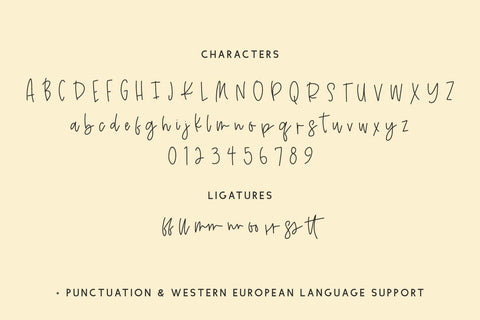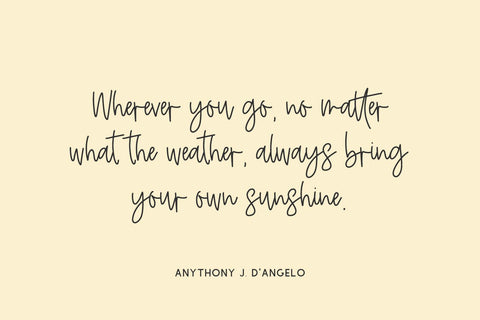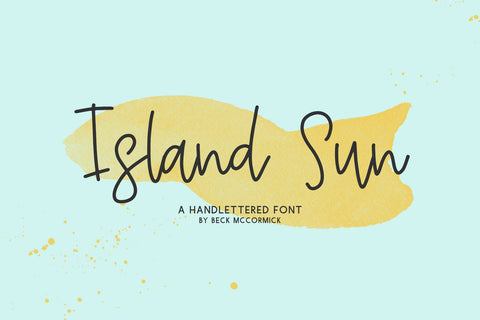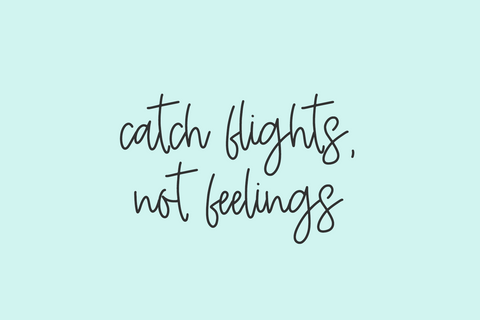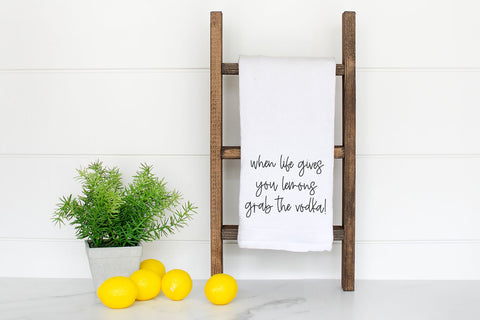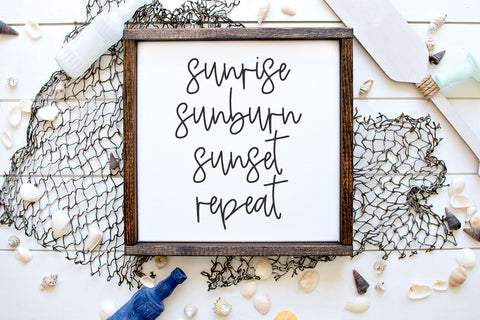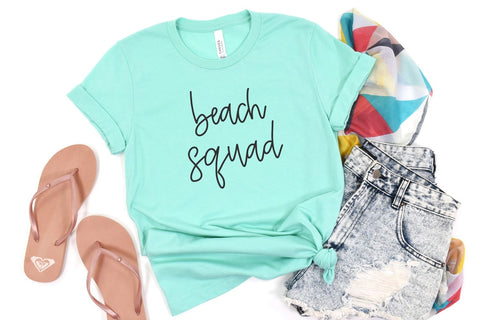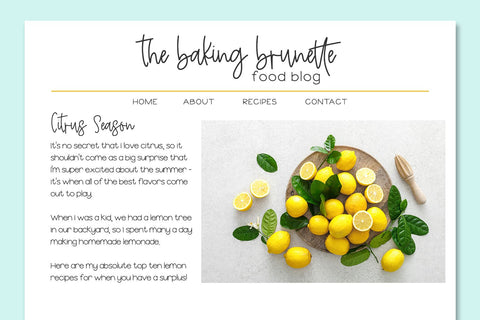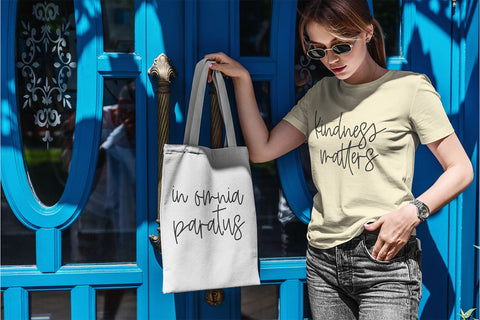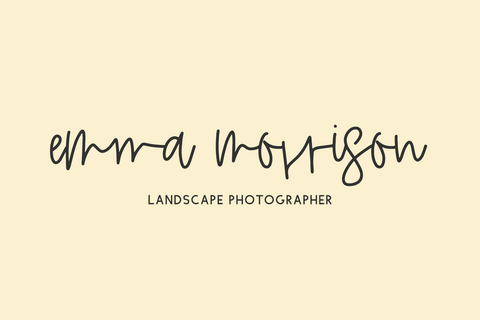
Island Sun Script Font
Introducing Island Sun, a modern calligraphy font. Island Sun is monoline, and also includes ligatures.
Island Sun is best for:
- feminine, crafty projects with your Cricut or Silhouette machine, or your SVG design business
- farmhouse decor and crafts
- logos + branding
- digital planners & apps like Goodnotes
- website design + website accents, blog design
- clean print design, like magazines + flyers
- header elements that need handwritten touch
- quote graphics for social media
- feminine graphic tee shirt design & other apparel
Island Sun includes:
- full upper + lowercase characters
- numbers + punctuation
- Western European Language Support
- 8 ligatures - ff, ll, mm, nn, oo, rr, ss, tt